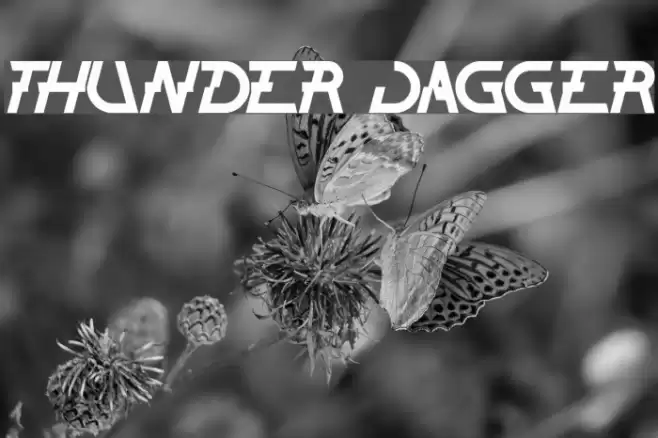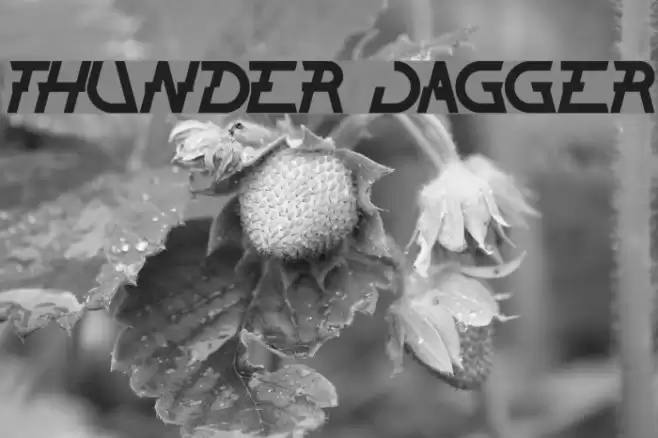
THUNDER JAGGER Font
THUNDER JAGGER Description
This font features a bold and dynamic design with sharp, angular lines and a futuristic aesthetic. The characters are constructed with a sense of movement and energy, making them stand out with a unique, edgy style. The uppercase letters are particularly striking, with a consistent slant that adds to the overall sense of speed and modernity. The font's geometric shapes and clean lines give it a sleek appearance, suitable for projects that require a strong visual impact. Its distinctive style makes it ideal for use in branding, advertising, and any design work that aims to convey a sense of innovation and forward-thinking.
A bold, angular font with a futuristic and dynamic style from Uncategorized fonts.
- Proposed Projects: Ideal for branding, advertising, and innovative design projects.